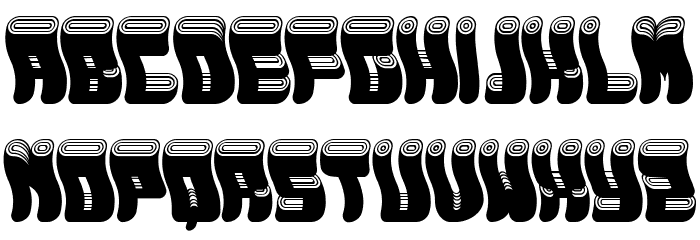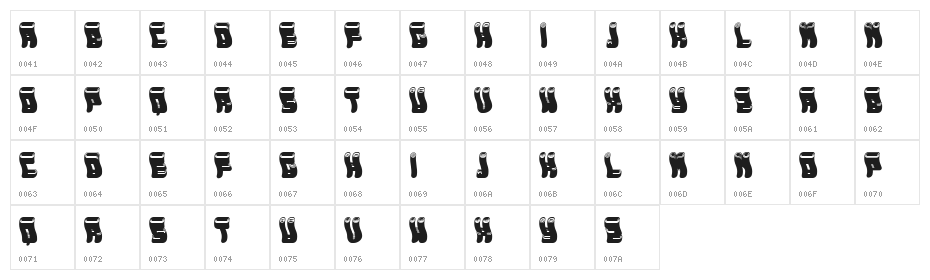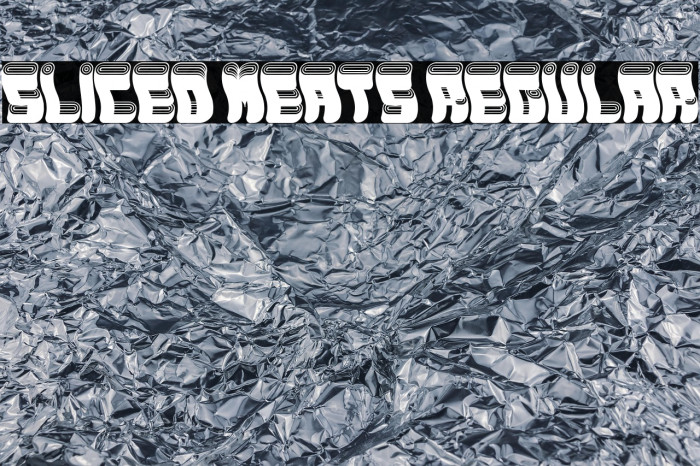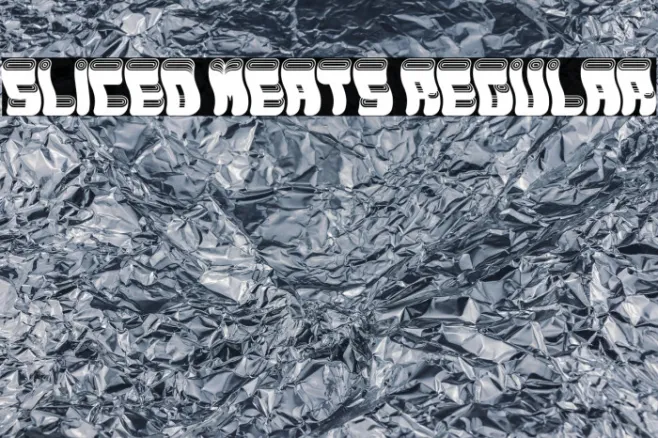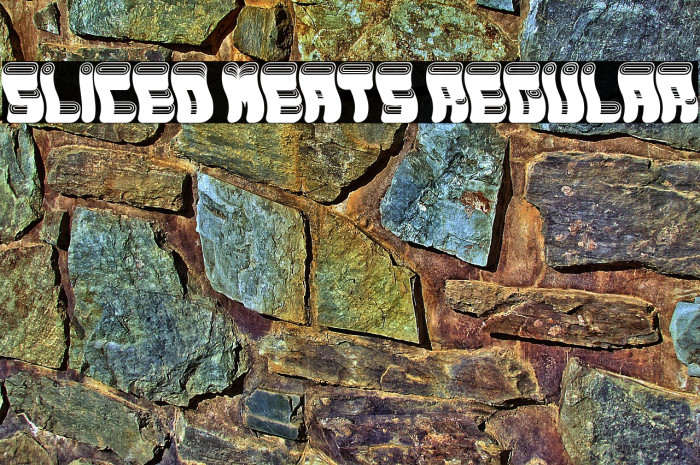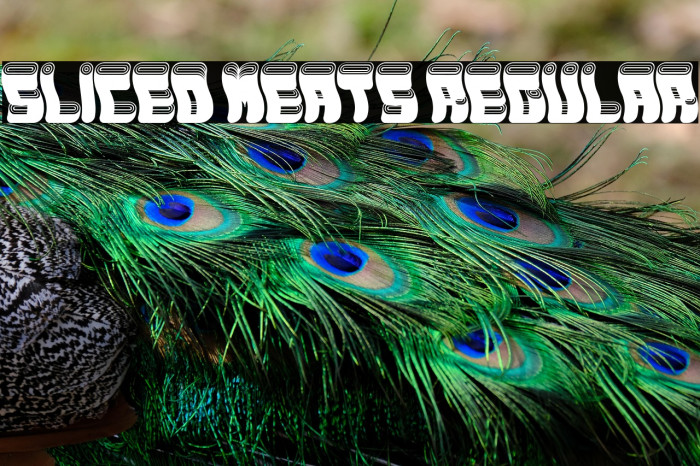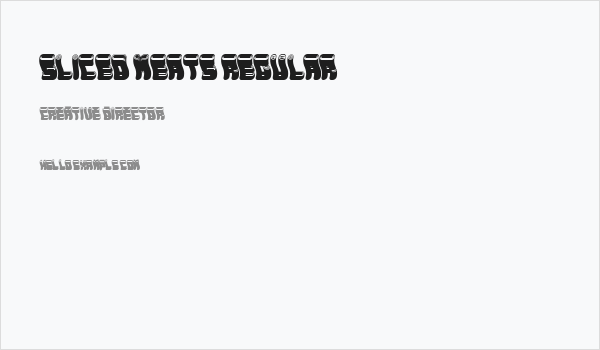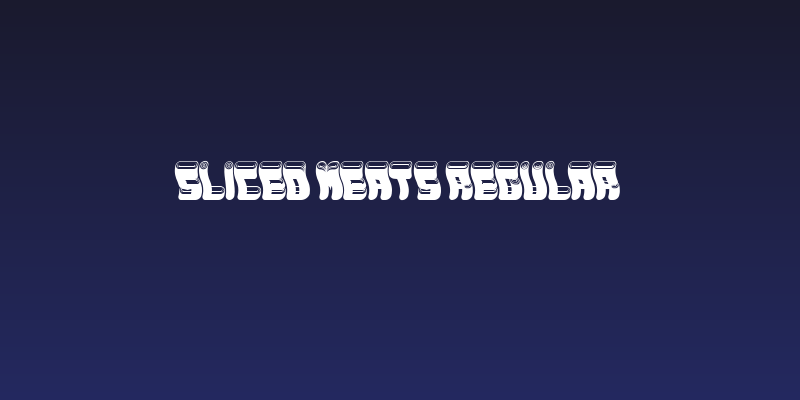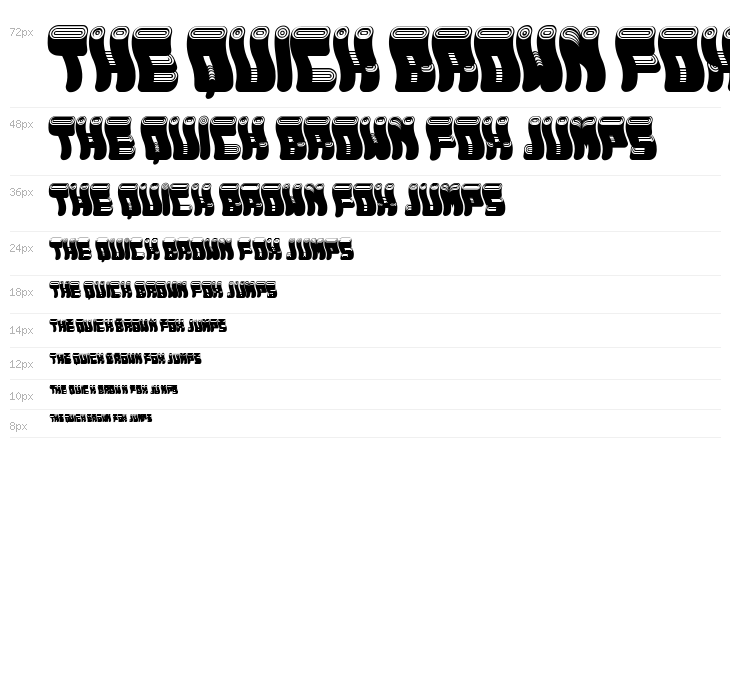
Sliced Meats Regular Font
Sliced Meats Regular Description
This font features a unique and playful design, reminiscent of sliced meats with its layered and stacked appearance. The characters are bold and have a three-dimensional effect, giving them a distinct and eye-catching look. Each letter is crafted with a sense of humor and creativity, making it perfect for projects that require a fun and quirky touch. The font's design is consistent across both uppercase and lowercase letters, as well as numbers and special characters, ensuring a cohesive look in any text. Its boldness and decorative style make it stand out, while the intricate detailing adds depth and interest.
| Proposed Projects | Ideal for posters, event flyers, children's book covers, and branding for playful or food-related businesses. |